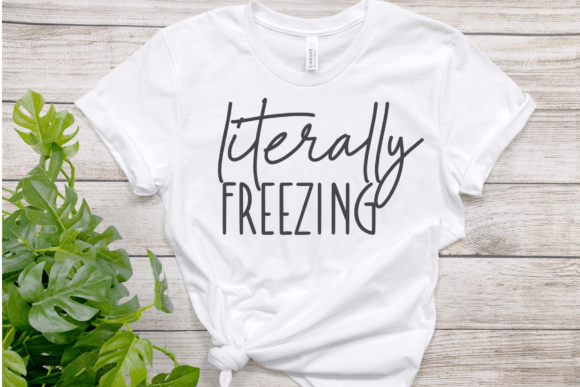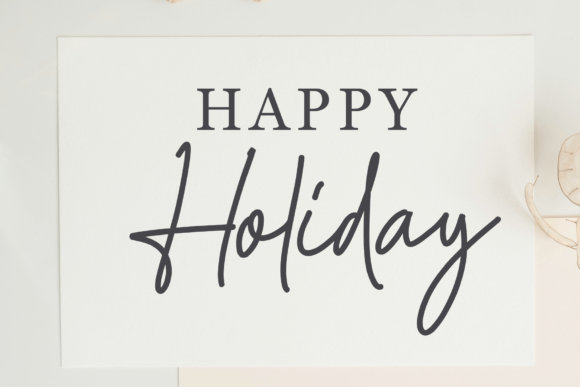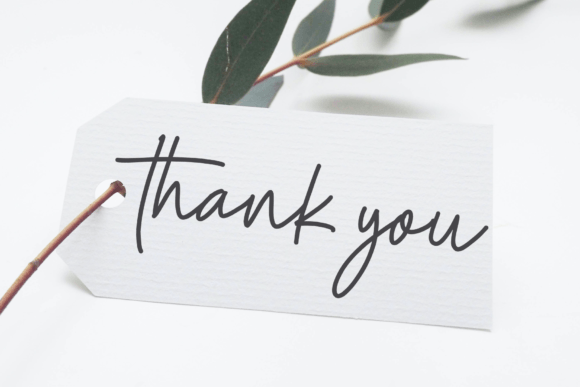
Add Luxury Spark with Winter Font
The Winter font is a splendid signature script designed to add a luxurious and elegant spark to your creative projects. Perfect for product packaging, branding projects, magazines, social media content, and wedding designs, this font brings a sophisticated touch that elevates any design.
Perfect for Packaging, Branding, and Weddings
The Winter font is ideal for a wide range of applications including product packaging, branding materials, editorial layouts, social media graphics, and wedding invitations. Its flowing signature style adds a personal, high-end feel that makes your projects stand out.
A Signature Font with Elegant Flow
Each character in the Winter font is carefully crafted to deliver smooth, natural strokes that mimic authentic handwriting. This font balances decorative elegance with readability, making it suitable for both large headings and detailed text elements.
Despite its decorative signature style, the Winter font maintains excellent readability across different sizes. Whether used for headlines, logos, or smaller text, it offers a perfect balance between style and clarity, making it versatile for many creative projects.
Make Your Designs Shine with Sophistication
Typography sets the tone for your designs, and Winter adds a luxurious and elegant spirit. If you want to elevate your projects with a splendid signature font, download the Winter font today and create stunning, memorable visuals.